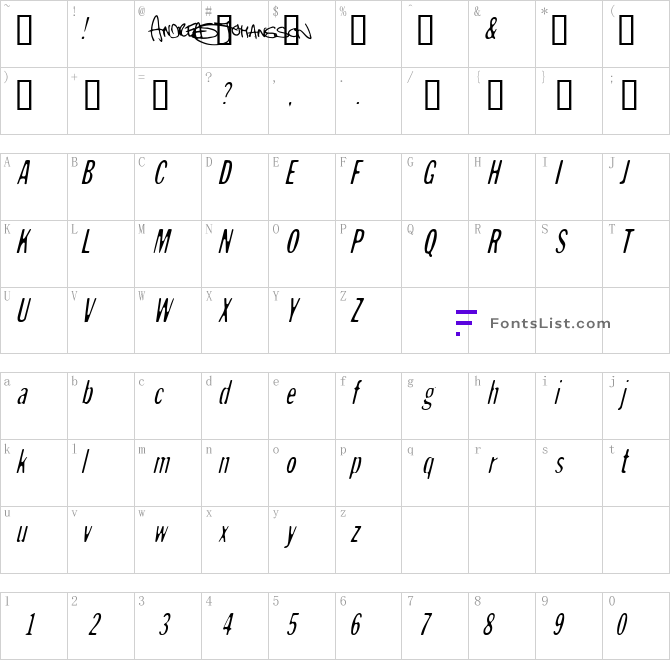
- Font Name:Andreas Sans Cnd Oblique
Andreas-Sans-Cnd-Oblique.ttf is a very beautiful artistic font, Andreas-Sans-Cnd-Oblique.ttf is widely used in the design and printing of various books and pictures,Andreas-Sans-Cnd-Oblique.ttf has a strong visual impact,Andreas-Sans-Cnd-Oblique.ttf is a commonly used font in newspapers, magazines and books, and is used in posters, e-commerce Poster design, store design, logo design, font design and other fields.Andreas-Sans-Cnd-Oblique.